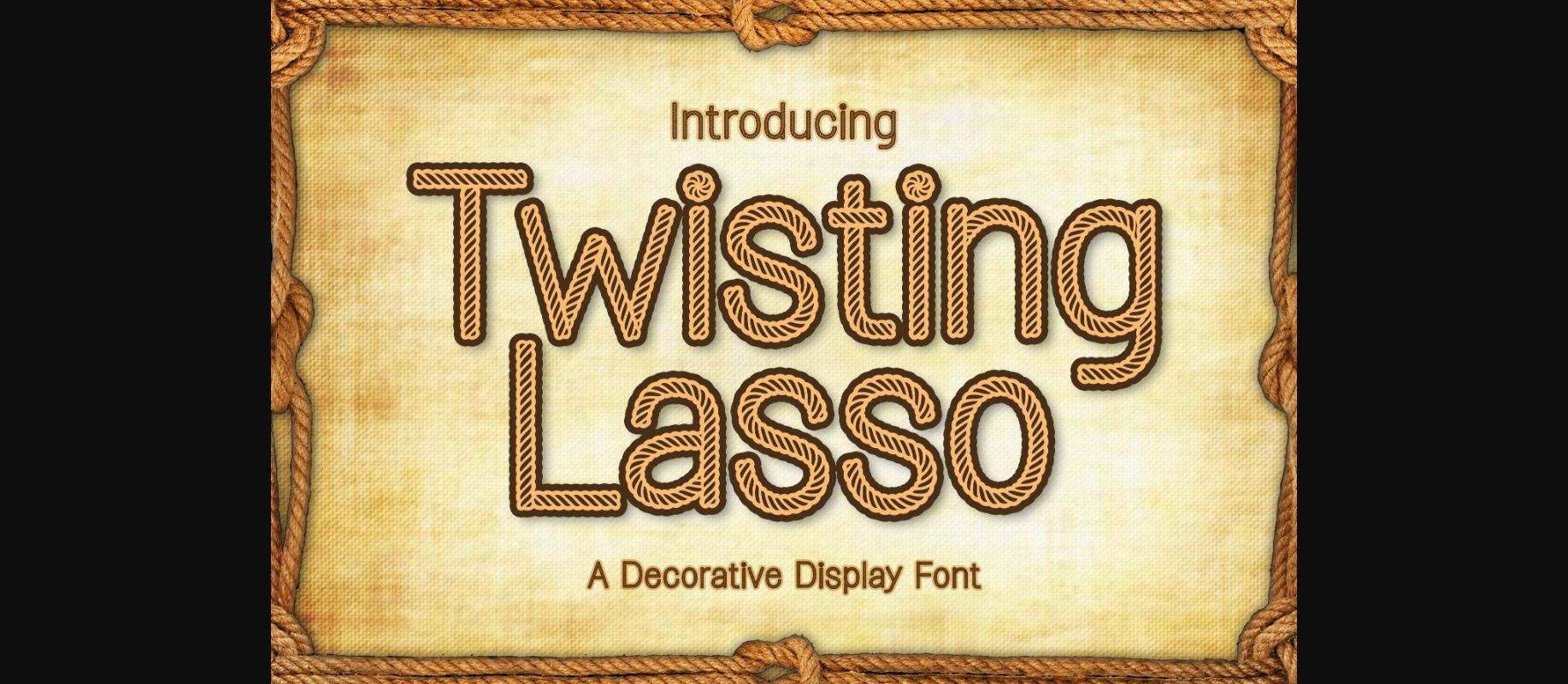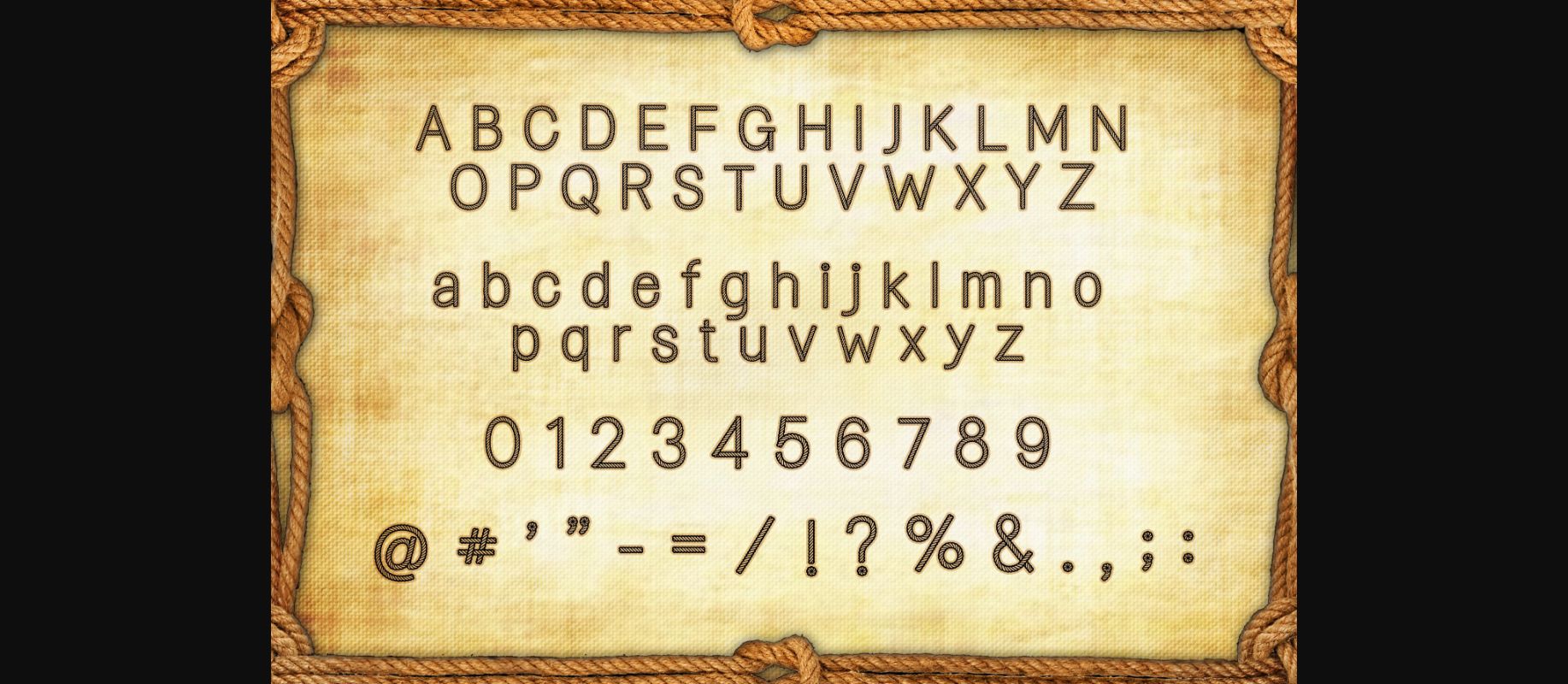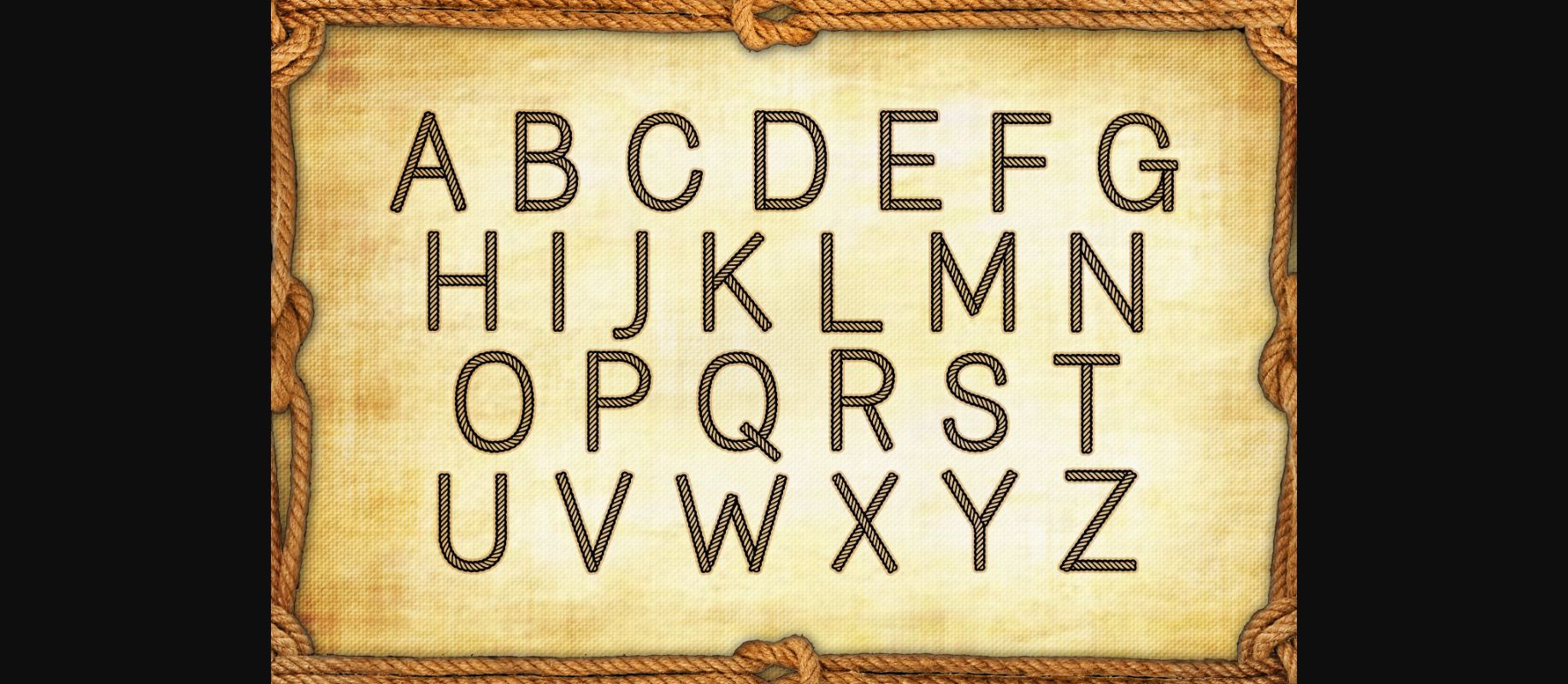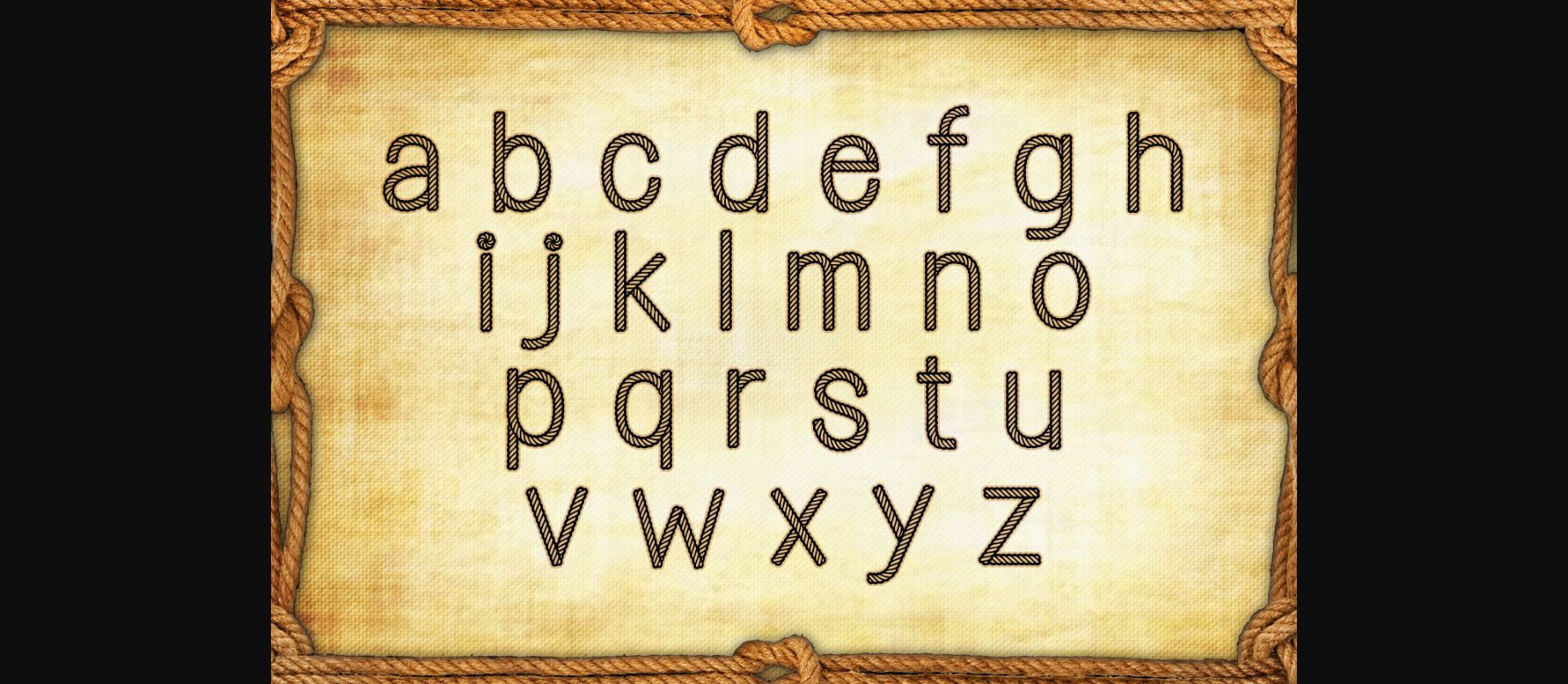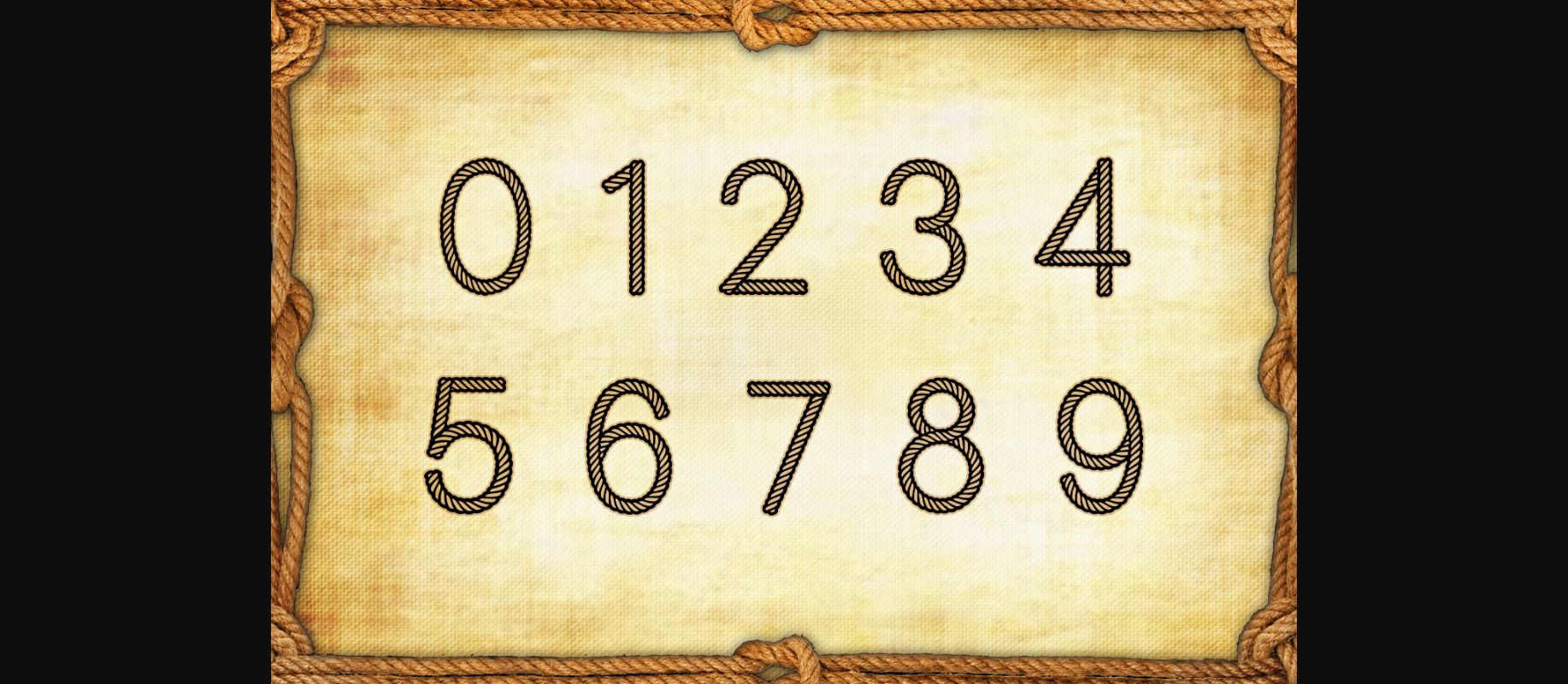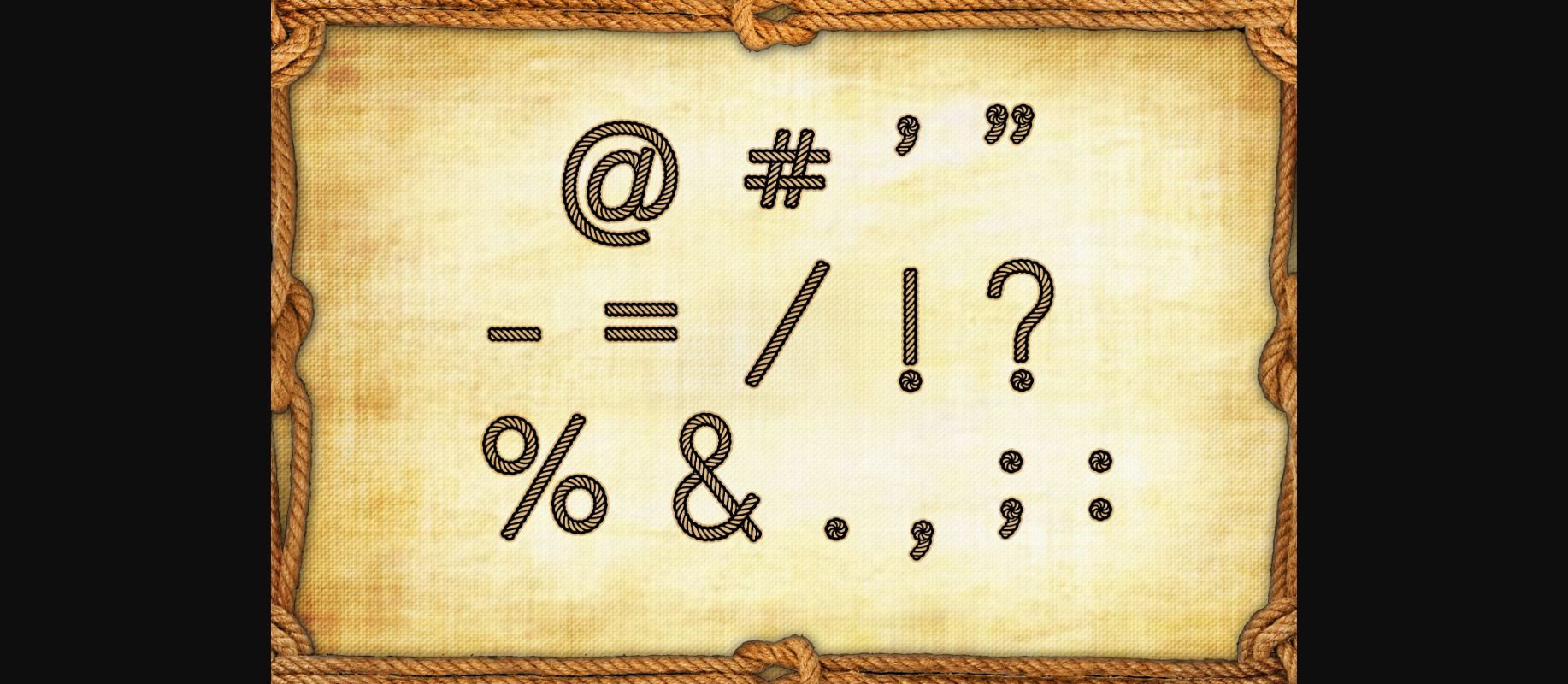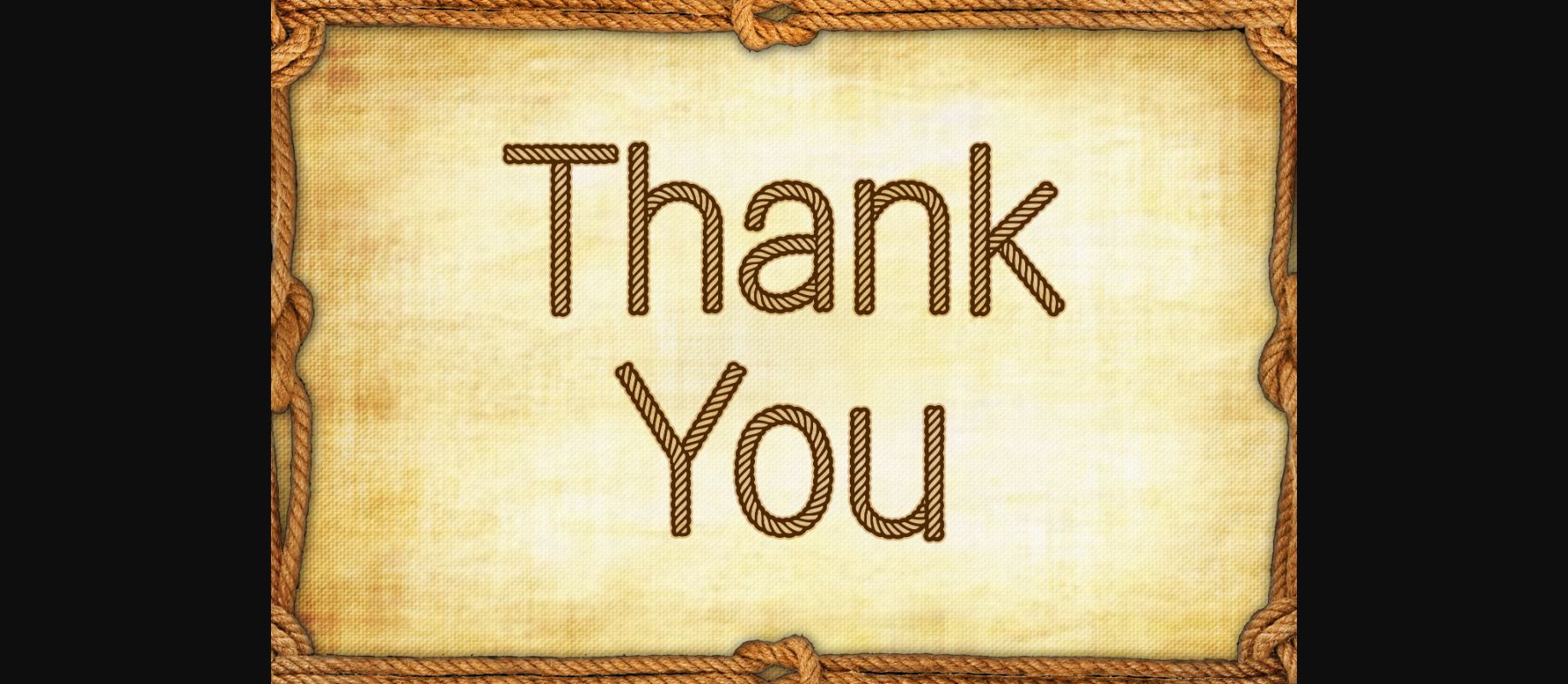
HomeDecorative FontsTwisting Lasso Font Decorative Fonts Twisting Lasso Font FacebookXPinterestWhatsApp 1 of 9 ... Twisting Lasso Font Poster 2... Twisting Lasso Font Poster 3... Twisting Lasso Font Poster 4... Twisting Lasso Font Poster 5... Twisting Lasso Font Poster 6... Twisting Lasso Font Poster 7... Twisting Lasso Font Poster 8... Twisting Lasso Font Poster 9... About Twisting Lasso Font Twisting Lasso is a string rope decorative display font. No matter the topic, this font will be an incredible asset to your fonts’ library, as it has the potential to elevate any creation. DOWNLOAD NOW People also explored Absolute Font Haglos Marshmallow Font Cashion Font Publication Font Bright Signature Font The Theatre Font Bubble You Font Maria Font 251 0 TagsTwisting Lasso Font Previous articleOrange Summer FontNext articleHalloween Boo Font LEAVE A REPLY Cancel reply Comment: Please enter your comment! Name:* Please enter your name here Email:* You have entered an incorrect email address! Please enter your email address here Website: Save my name, email, and website in this browser for the next time I comment. Personal Use Free Husky Stash Personal Use Free Read more about this font Rafika Personal Use Free Read more about this font Farmgarden Personal Use Free Read more about this font Stereofidelic Personal Use Free Read more about this font BLOG Using Fonts in Digital Marketing: Tips to Strengthen Your Brand Identity In the realm of digital marketing, every visual element plays a crucial role in shaping a brand's identity, and fonts are no exception. The... The 10 Best Handwriting Fonts to Add Personality to Your Designs 5 Fonts That Will Dominate Design Trends in 2026 How to Install and Use Fonts on Windows, macOS, and Web Projects